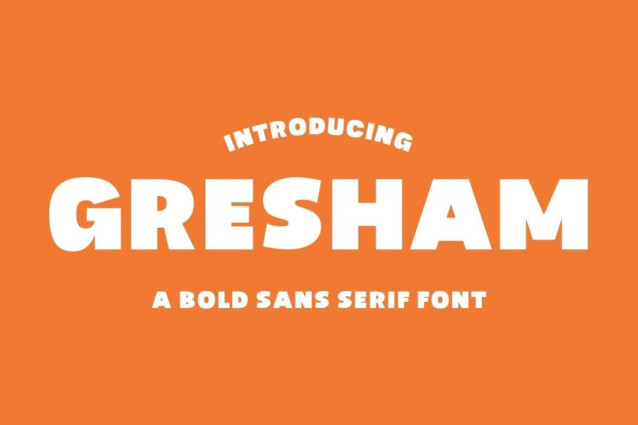
Gresham Font
Gresham Font is a gentle, bold sans serif typeface with a condensed vibe. It is perfectly suited for designing recognizable & modern brands, contemporary packaging, bold statements, websites and so much more!